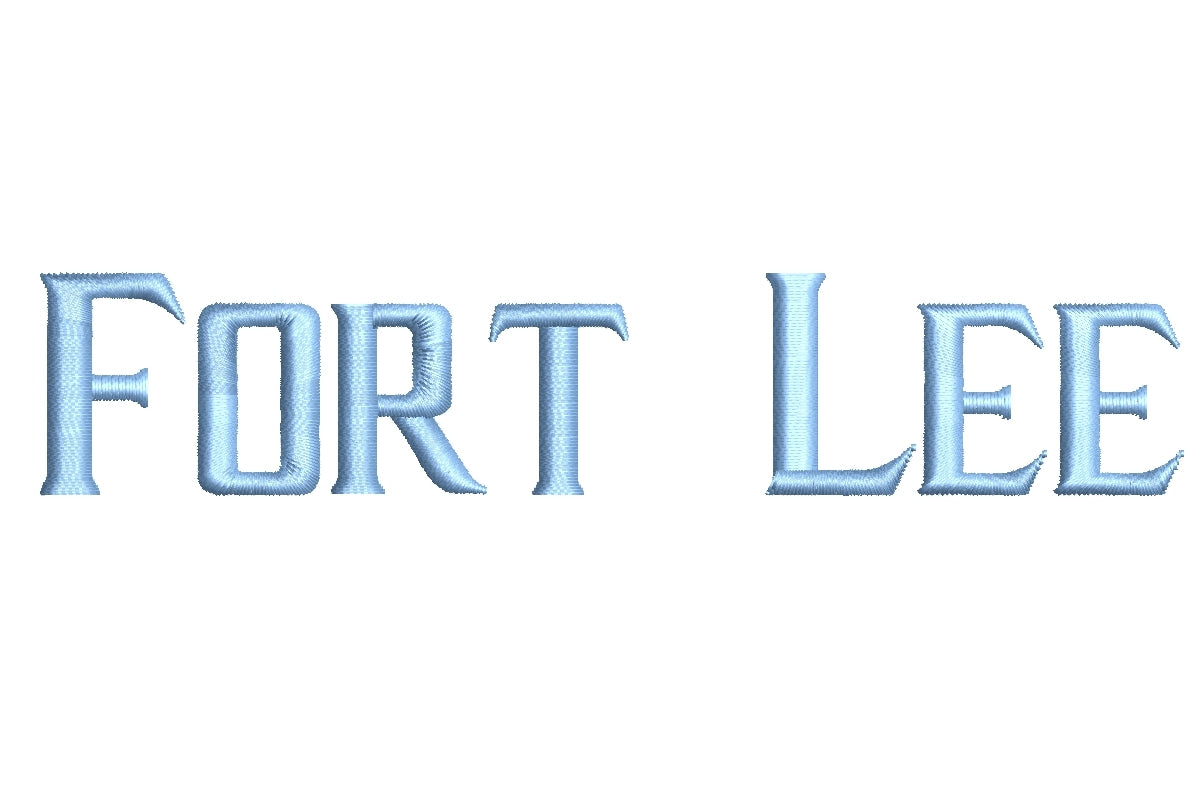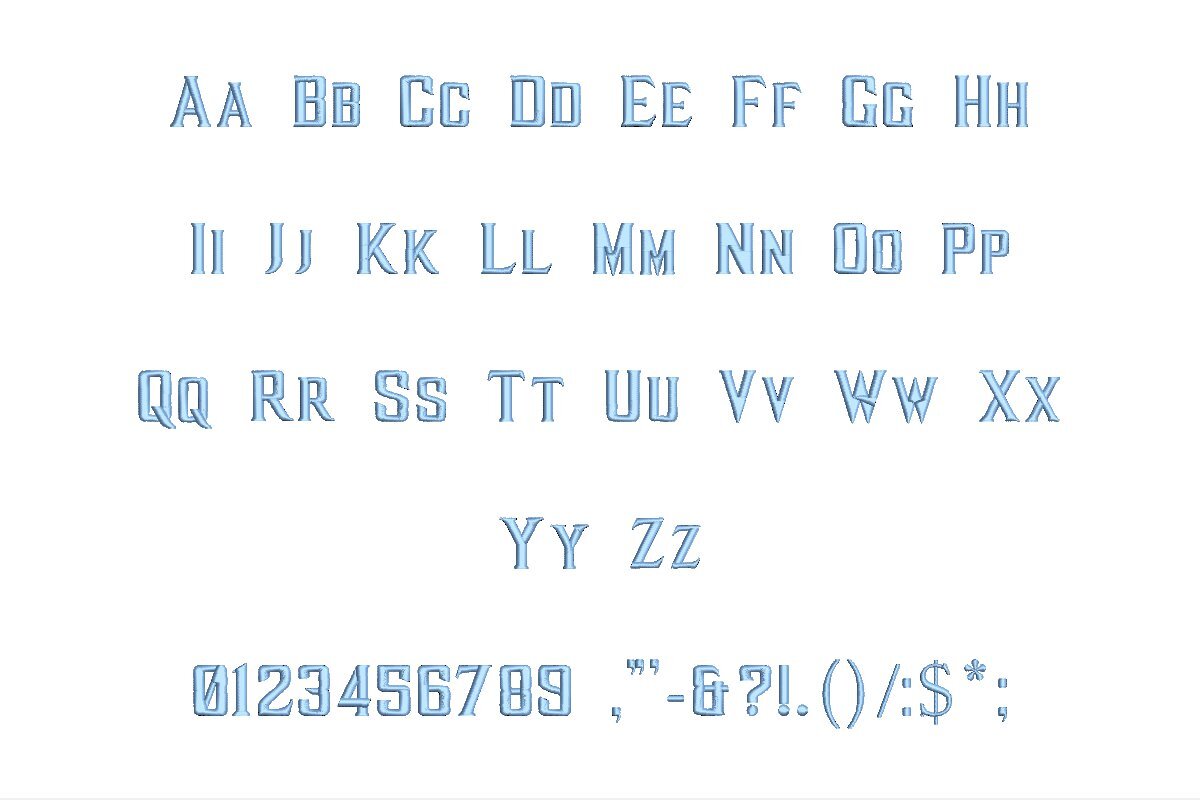
Fort Lee ESA machine embroidery font alphabet preview
Fort Lee ESA machine embroidery font additional lettering sample
Fort Lee ESA Font
Introducing the Fort Lee ESA Font, your pathway to embroidery excellence. Crafted for seamless compatibility with Wilcom Studio e4.5.6 and Hatch 3 versions and beyond, this font enhances your creative journey. Whether you're a seasoned embroiderer or a beginner, Fort Lee ESA simplifies the digitizing and stitching process. Its smooth integration with Wilcom Studio and Hatch guarantees efficiency and precision. This font combines modern elegance and style to add sophistication to your designs. Elevate your embroidery projects with the Fort Lee ESA Font, where creativity meets versatility. Achieve remarkable results – order now to unlock your full design potential.